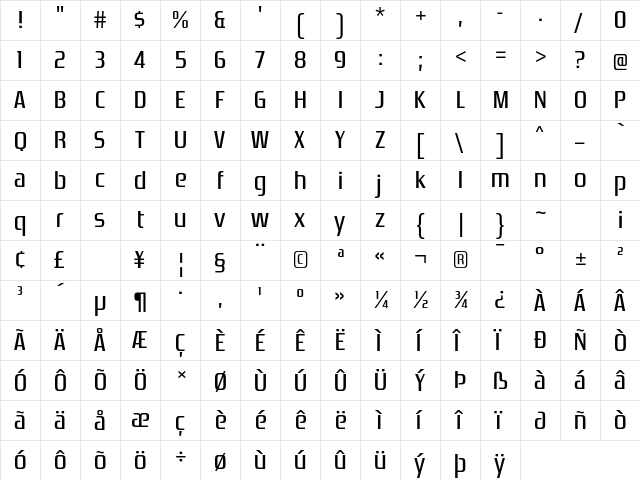
Zrnic Regular
Design Context for Zrnic Typeface
Zrnic takes a measured approach to typography — its balanced proportions and neutral character make it a reliable workhorse for both digital and print work.
Pro Tip: Use Zrnic in both headline and body roles to test its range before committing to a single application.